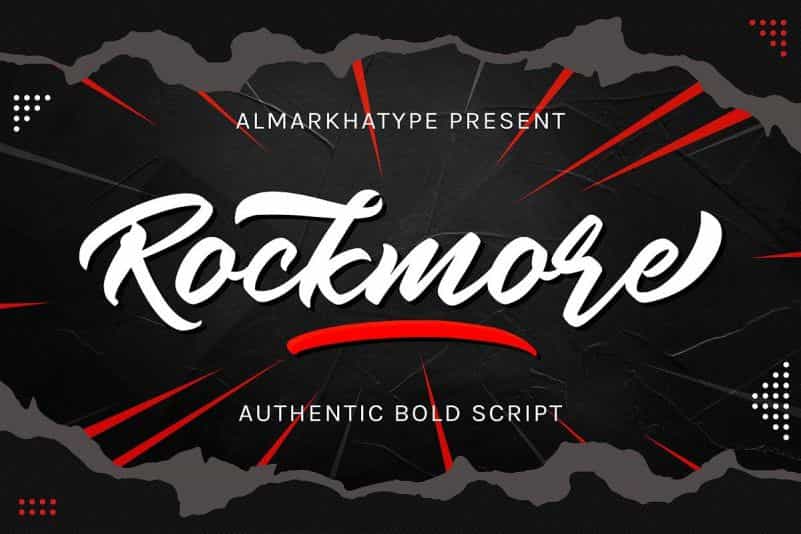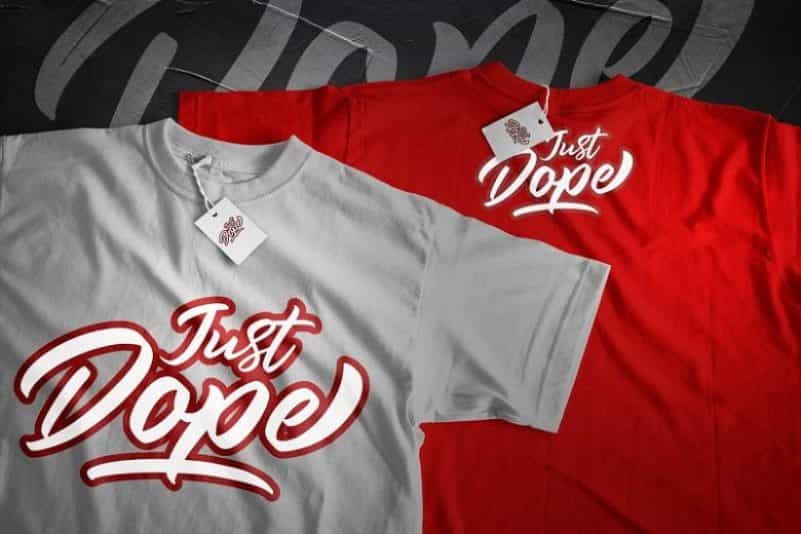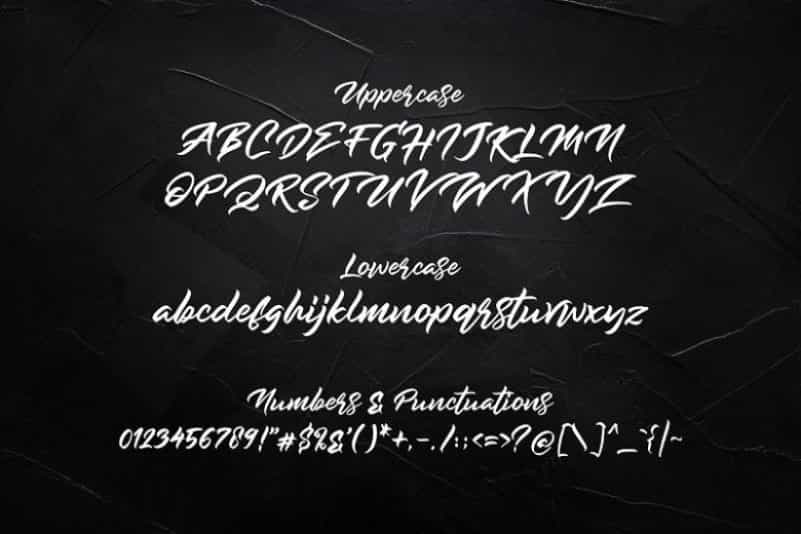
Discover Rockmore Script Font, part of the Brush Calligraphy Handwritten collection—a versatile and unique font perfect for adding a personal touch to your projects. Download it for free and enjoy crafting designs with style, from invitations to social media posts. This font is available exclusively for personal use, giving you the freedom to create without limits. Unlock your creativity with Rockmore Script Font today!
Rockmore is a daring script font with its own special style and dynamic movement this font will be perfect for your next creative project like logos, printed quotes, invitations, cards, product packaging,, headers Logotype Letterhead Poster Apparel Design Label etc.